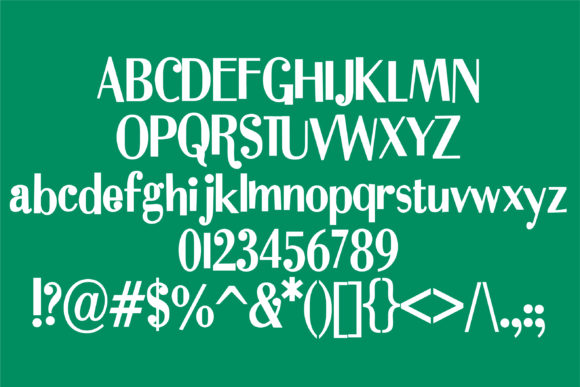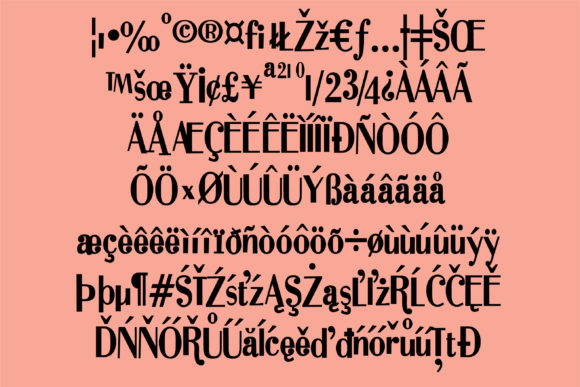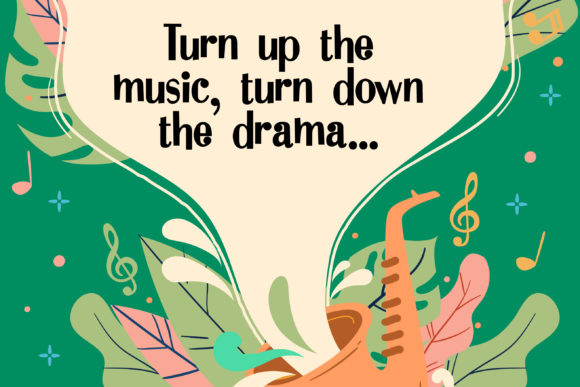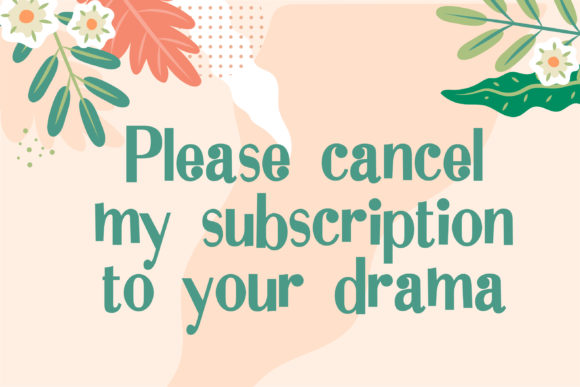
Introduction to Melodramatic Font
Melodramatic is a simple sans serif font with added “pops” of roundness.
Get inspired by its contemporary coolness .
Key Features of Melodramatic Font